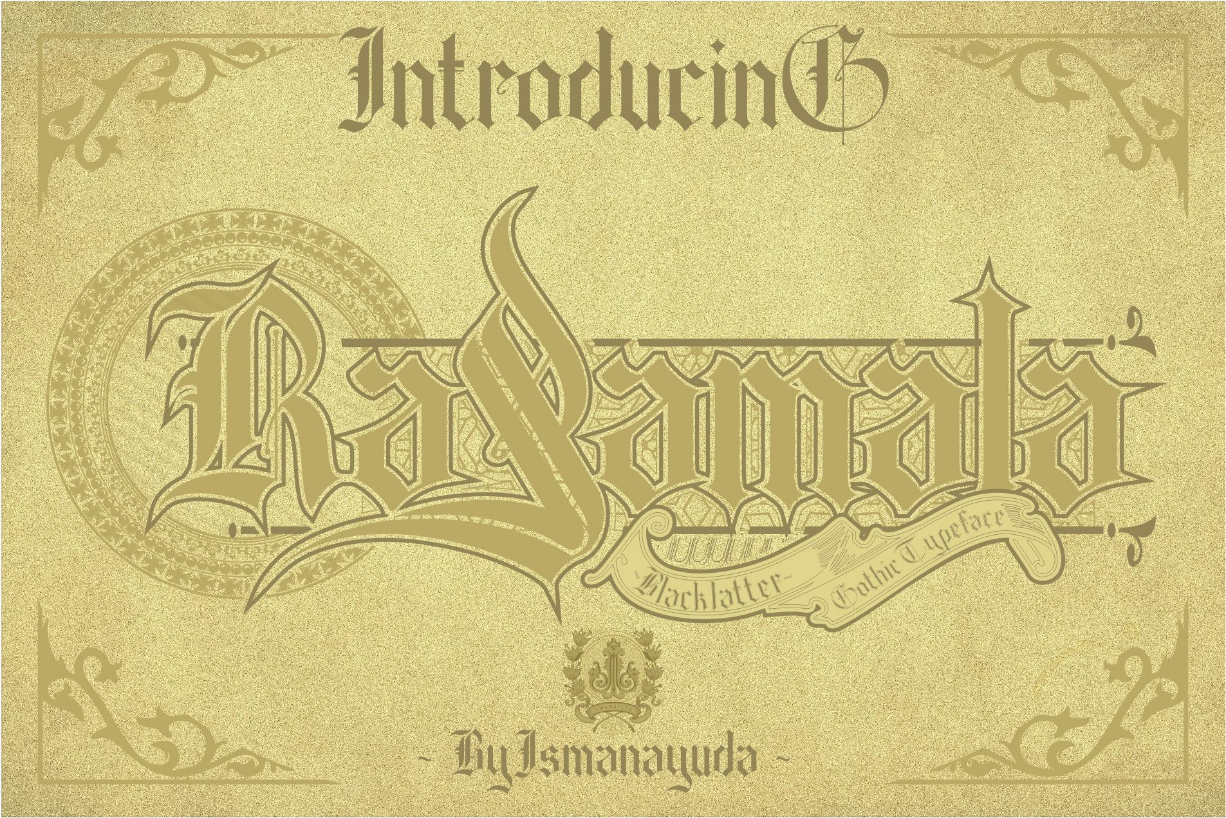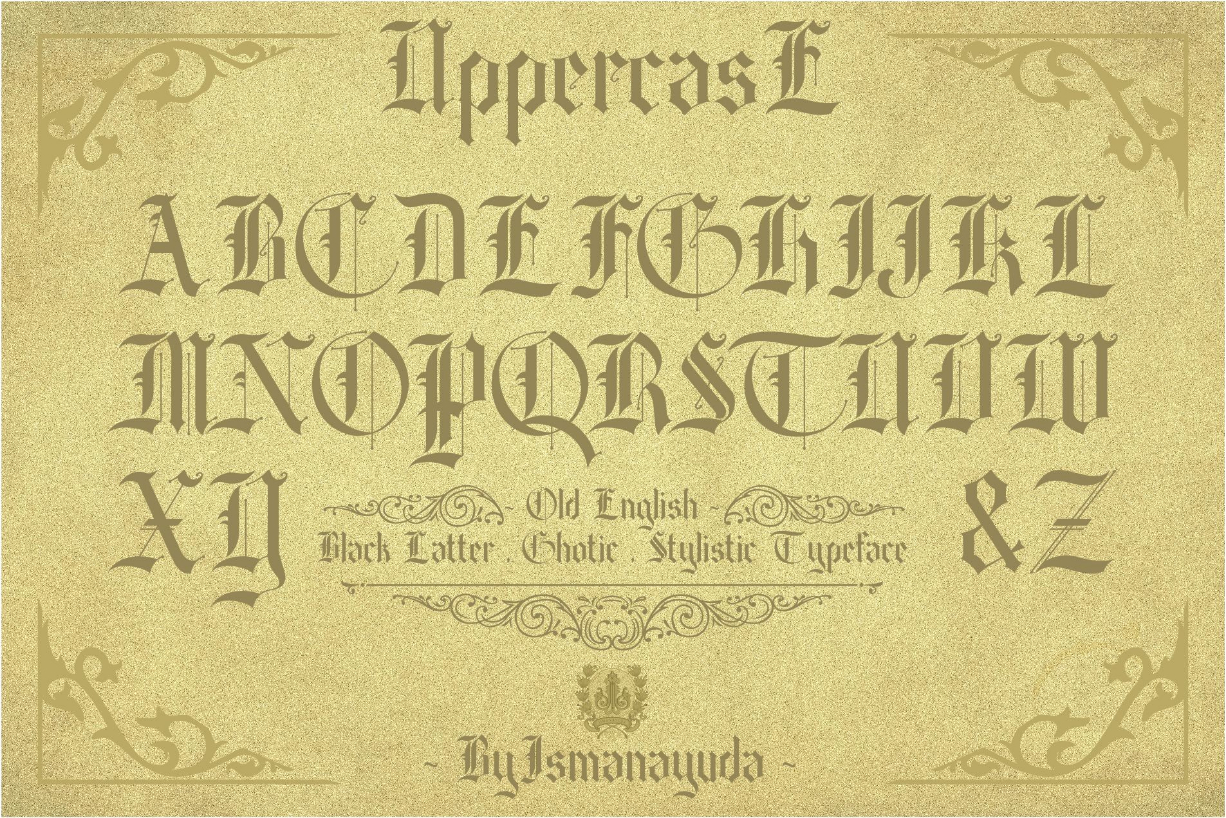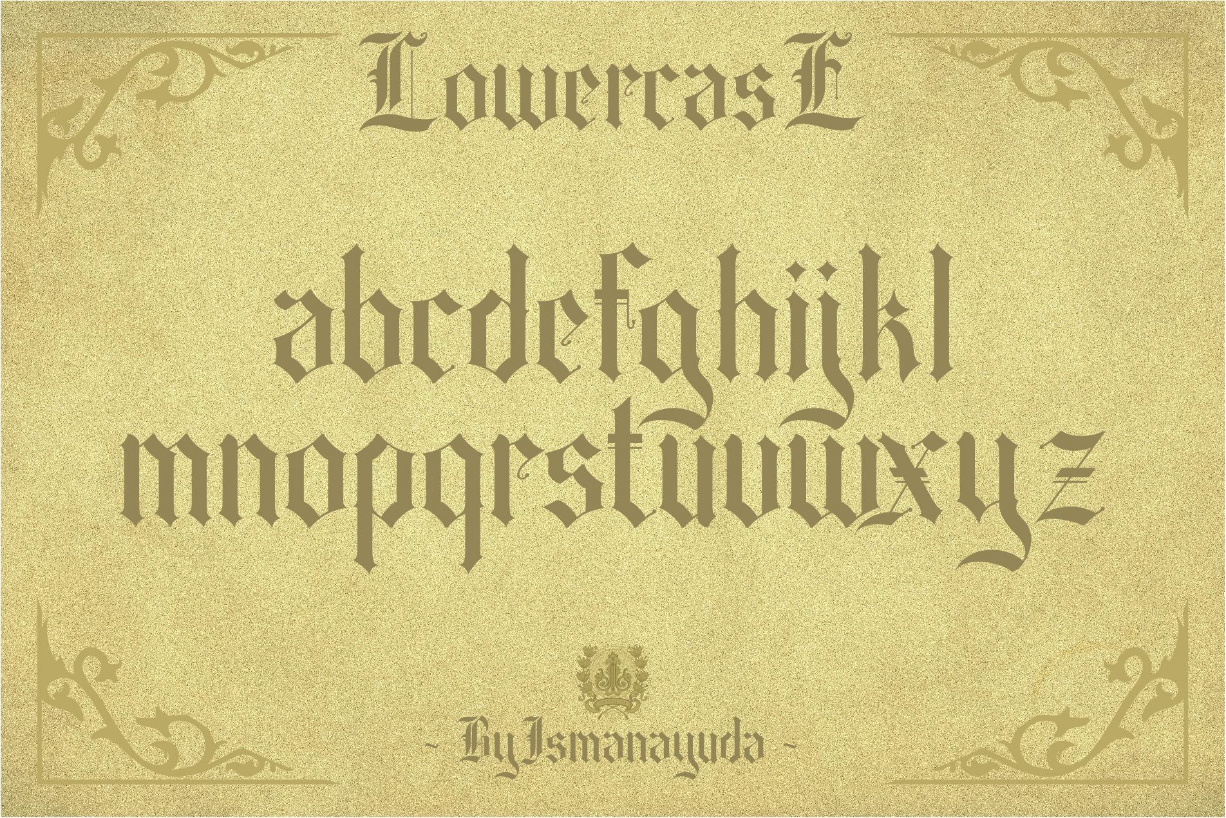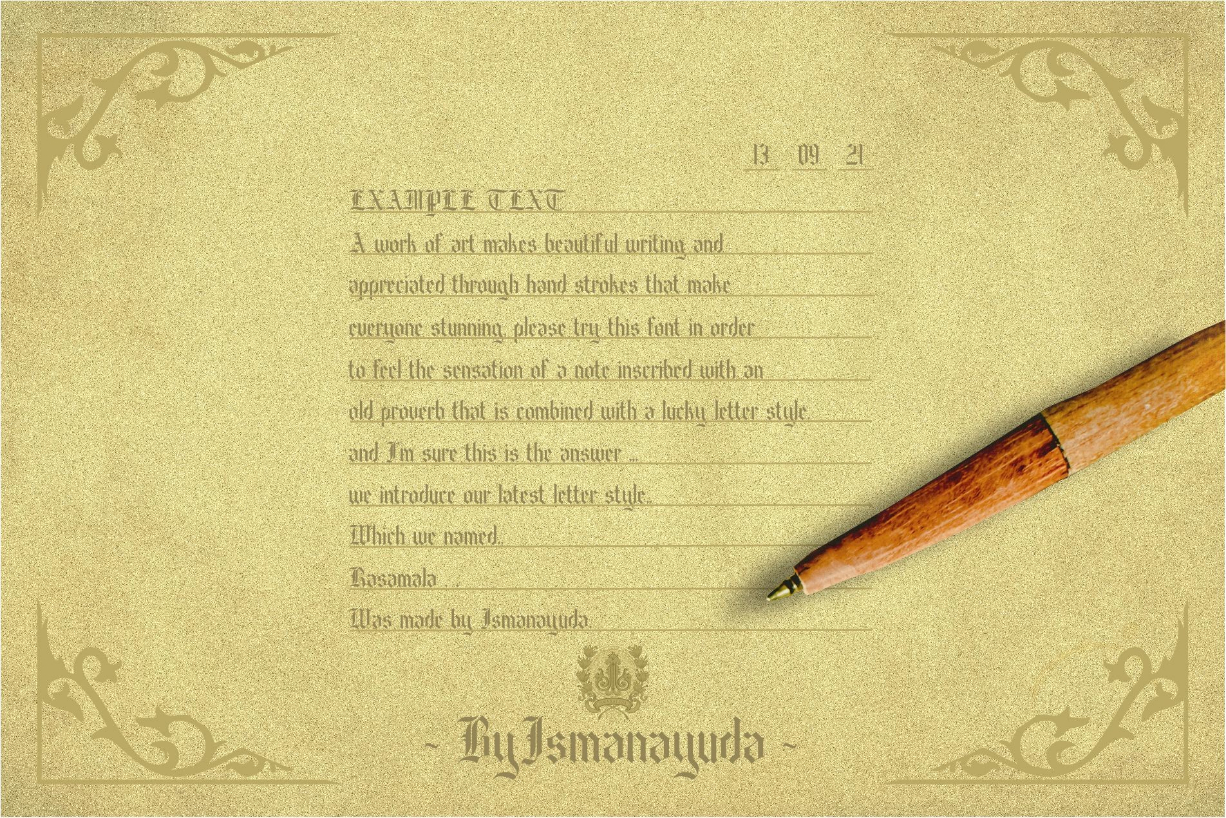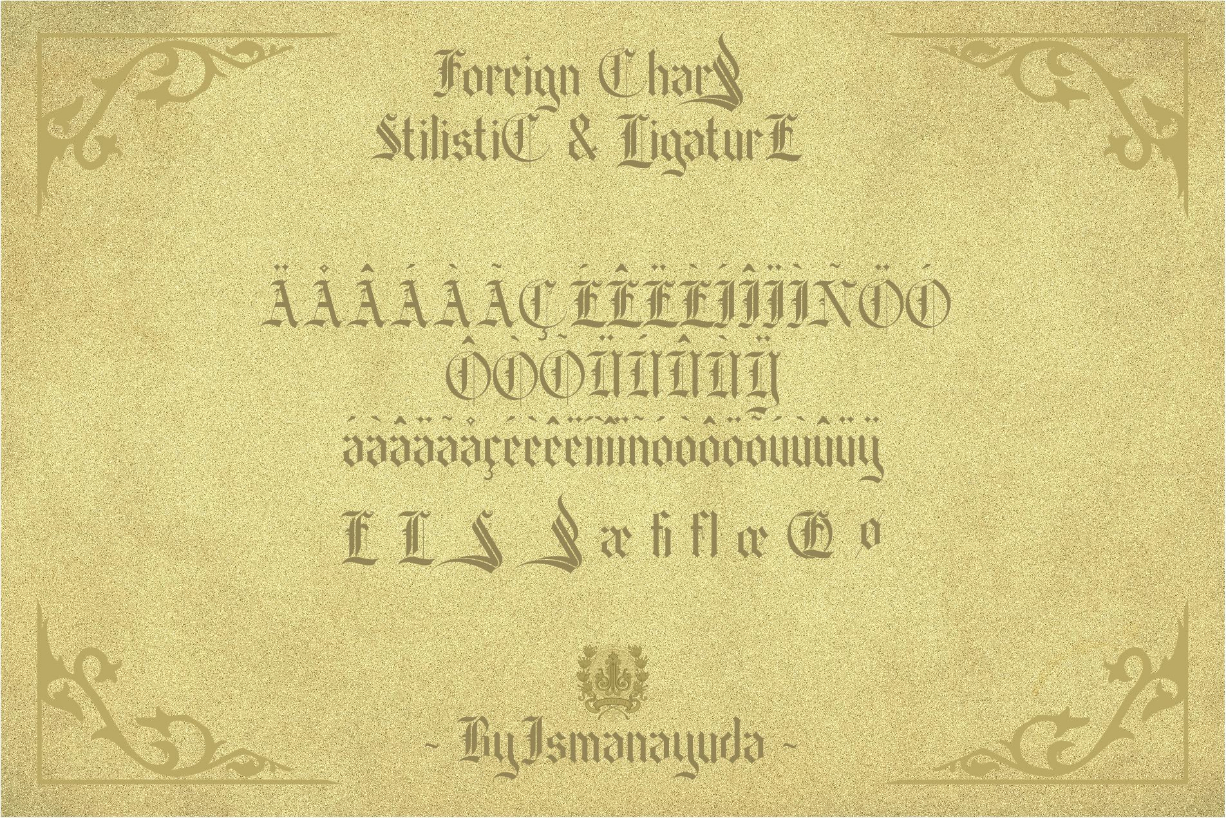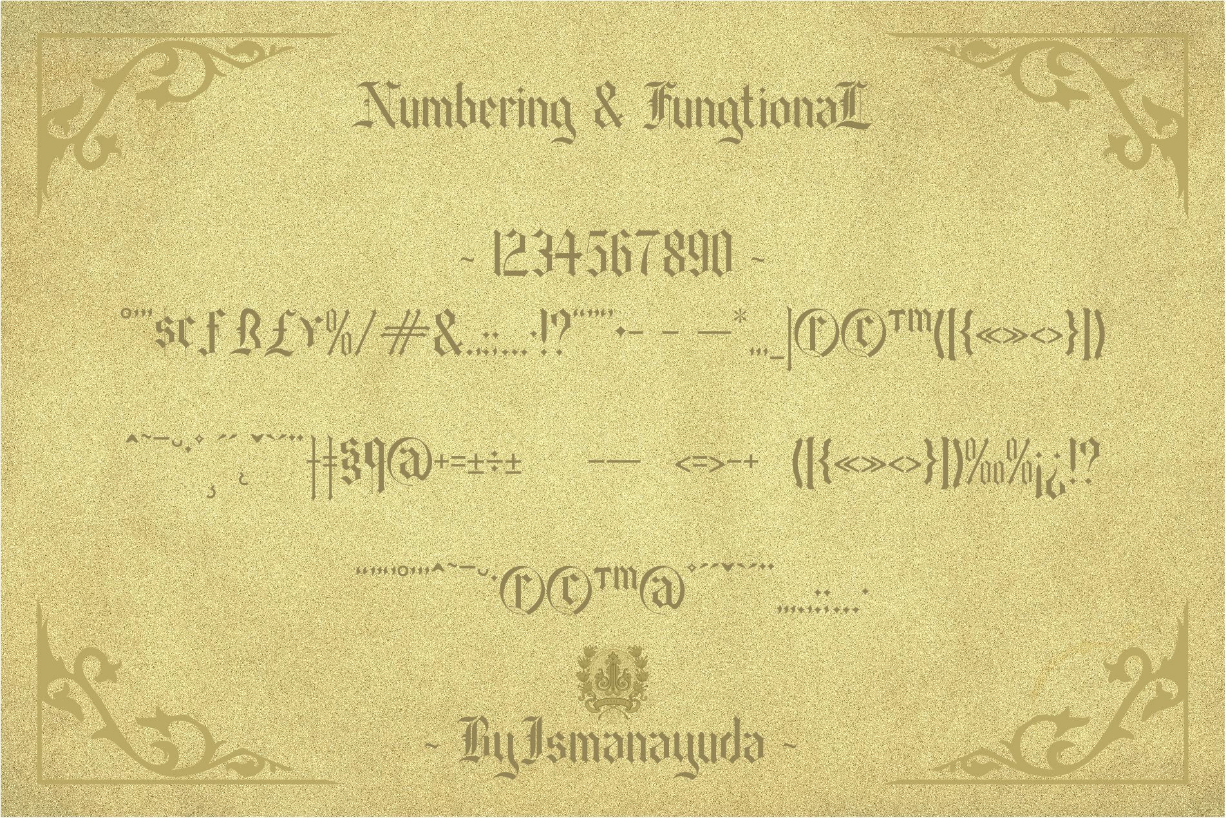
Rasamala Font
About Rasamala Font
Rasamala is an assertive and gothic styled blackletter font. This font is imposing and features uniquely shaped letters, and as a result, it will easily match a wide range of creations that require a distinct touch.